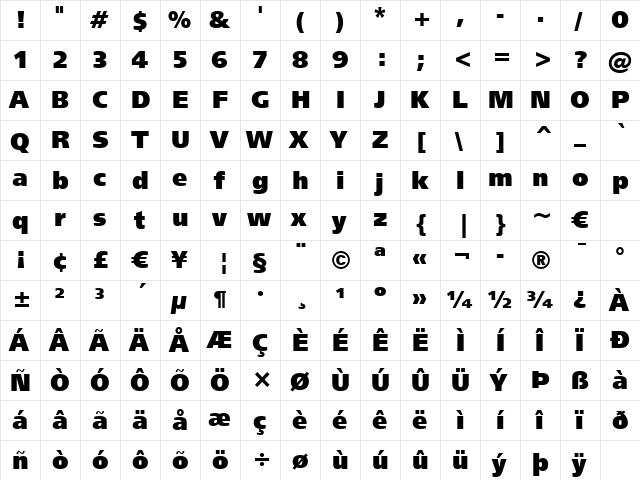
Humnst777 XBlk BT Extra Black
Humnst777 XBlk BT offers clean, dependable letterforms without strong stylistic allegiance, making it a practical choice for designers who need flexibility.